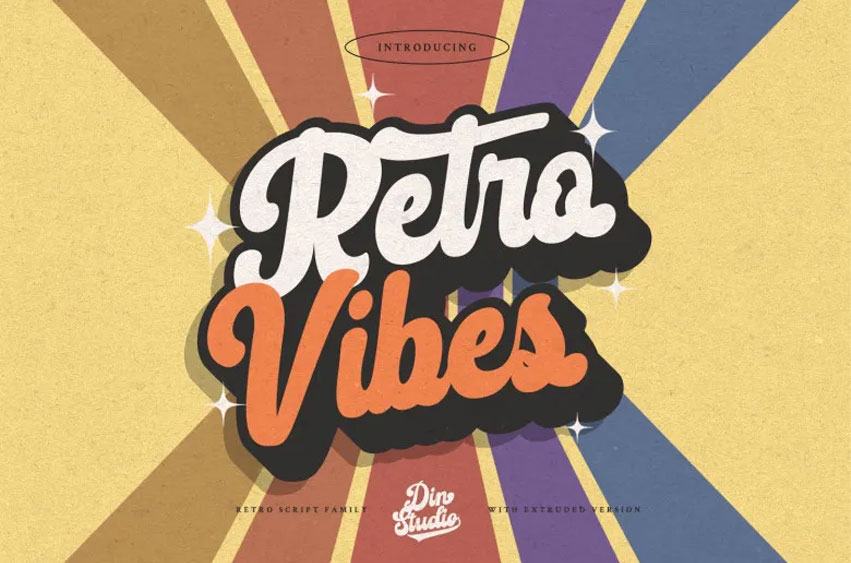
Retro Vibes Font is a bubble-style hand-crafted font inspired by illustrations and designs of the 1960s. Featuring an eye-catching halftone texture to evoke that vintage aesthetic.
Available both italic and regular versions for maximum flexibility! Retro Vibes offers Multilingual Support so your brand can reach a global audience.